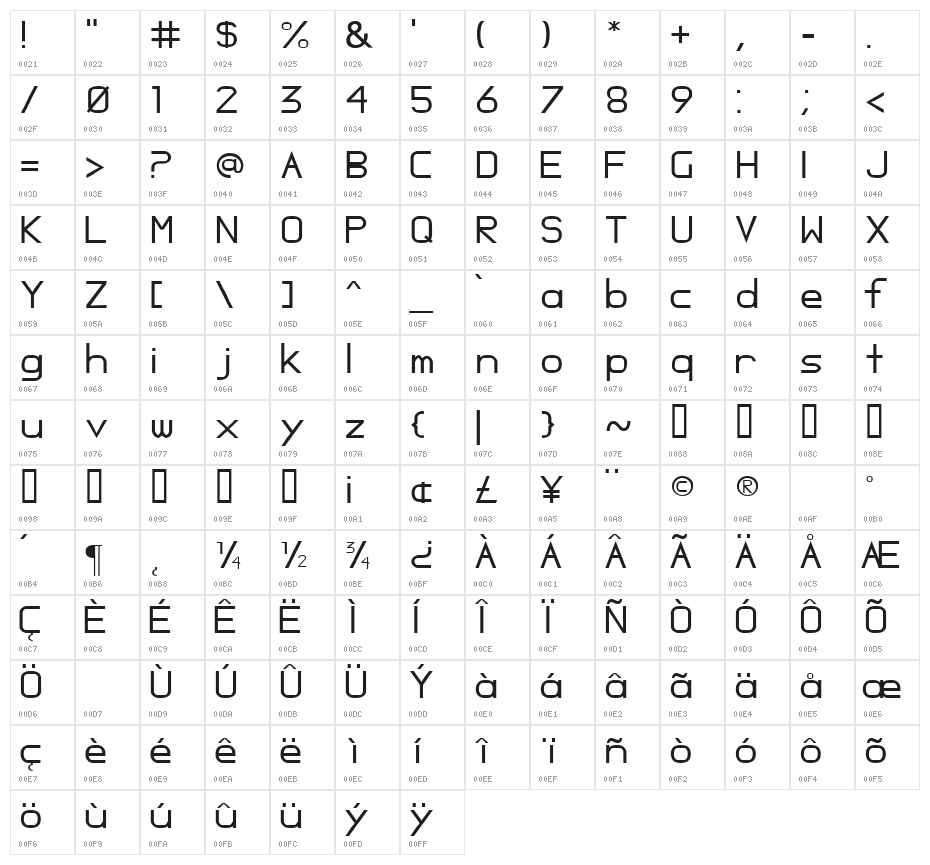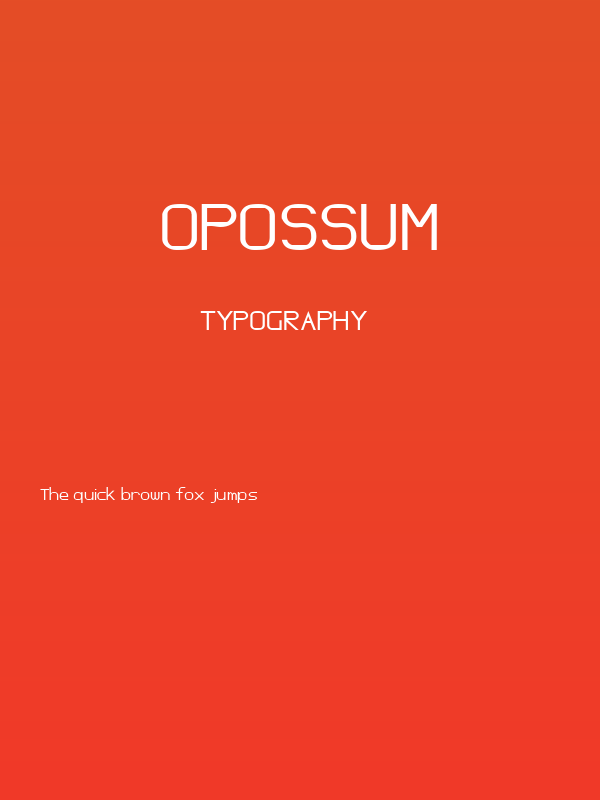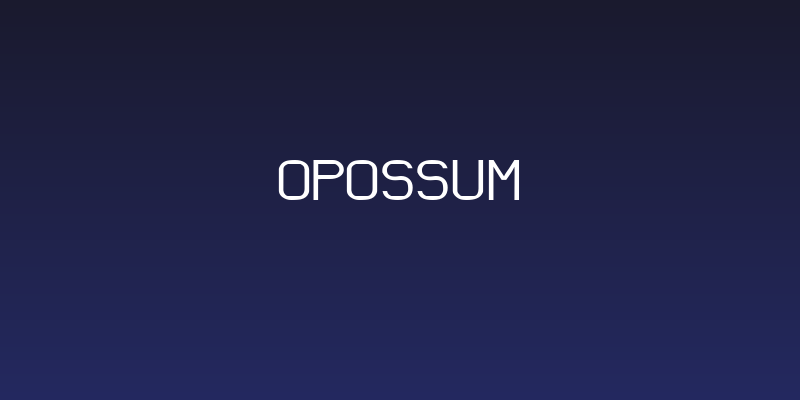
Opossum Font
Opossum Description
This font features a geometric and modern design with clean lines and a structured appearance. The uppercase letters are bold and angular, providing a strong visual impact. The lowercase letters maintain a consistent style, with rounded edges that soften the overall look. The numerals are distinct and easy to read, matching the font's contemporary aesthetic. Special characters are well-integrated, ensuring versatility in various design contexts. The uniformity in stroke width across all characters contributes to a cohesive and polished appearance, making it suitable for a wide range of applications.
| Proposed Projects | Ideal for branding, advertising, and digital media projects that require a modern and professional look. |